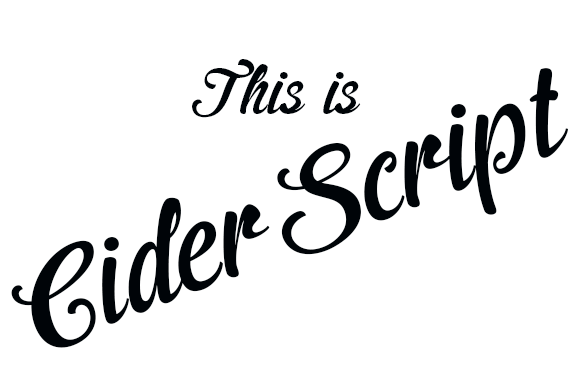
Introducing Cider Font - The Script Font of Enchantment!
In the world of digital aesthetics, the font you choose can make all the difference in captivating your audience and leaving a lasting impression. With Cider Font, a beautifully flowing script font, you have the power to transform your words into a visual masterpiece. Its rounded and swirly characters exude elegance and warmth, inviting readers into a world of enchantment.
Whether you're crafting logos, designing brochures, or creating social media graphics, Cider Font is the perfect choice for adding a touch of sophistication and magic to your projects. Its versatile style effortlessly complements any design theme, from classic and vintage to modern and minimalist. Let your words dance with grace and fluidity, leaving a lasting impression on all who encounter them.
With Cider Font, you can:
- Express your creativity with a font that embodies beauty and imagination.
- Add a personal touch to your projects, making them stand out from the crowd.
- Elevate the visual appeal of your content, attracting and engaging your audience.
- Communicate your message with clarity and style, ensuring your words resonate with readers.
- Make a statement with a font that speaks volumes about your brand's personality.
Cider Font is more than just a font; it's a gateway to a world of creative possibilities. Let your imagination soar as you explore its enchanting curves and discover the endless design possibilities. Download Cider Font today and unlock the power of captivating storytelling through typography!